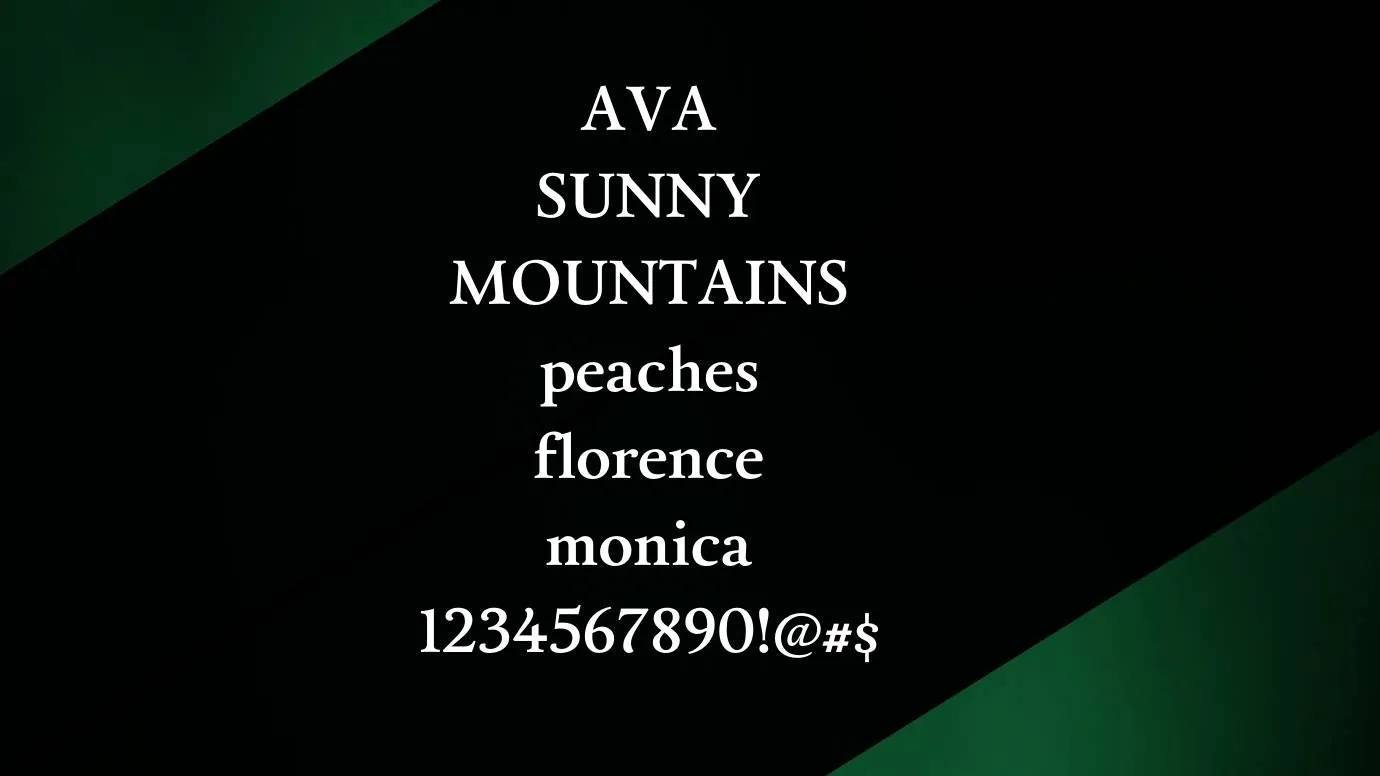
The Calendas Font is a typeface that was created in 2012 by Yvonne Schumacher. The font is named after the city of Calendas, which is located in Spain. The font was created with the intention of being used for headlines and other large text.
This Font has a unique design that is inspired by the architecture of the city of Calendas. The font is characterized by its large letters and its heavy weight. This is available in two different styles, the Regular and the Bold.
This is a great choice for headlines and other large text. The font’s unique design makes it stand out from other fonts, and the heavy weight makes it easy to read. You can easily compare it with webnar font. This is a versatile font that can be used for a variety of purposes. You can utilize it for both digital and print projects.
This is perfect for headlines, posters, and other large text. The font is also a great choice for branding and advertising. Overall, the Calendas Text is an excellent choice for any project that requires a unique, eye-catching font.
Creator of Calendas Font
The Calendas texture is a typeface that was created in 2012 by Yvonne Schumacher. The font is named after the city of Calendas, which is located in Spain.
This single, appealing style incorporates several elements, such as special symbols, capital, and lowercase letters, numbers, characters, glyphs, and language support.
| Name | Calendas Font |
| Style | Serif |
| Designer | Yvonne Schumacher |
What styles does the Calendas Text come in?
This is available in two different styles, the Regular and the Bold.
Where can I use the Calendas Typeface?
This is perfect for headlines, posters, and other large text. The font is also a great choice for branding and advertising. Overall, the Calendas texture is an excellent choice for any project that requires a unique, eye-catching font.
What type of font is Calendas Texture?
This is a typeface that was created in 2012 by Yvonne Schumacher. It looks like a Serif typeface family.